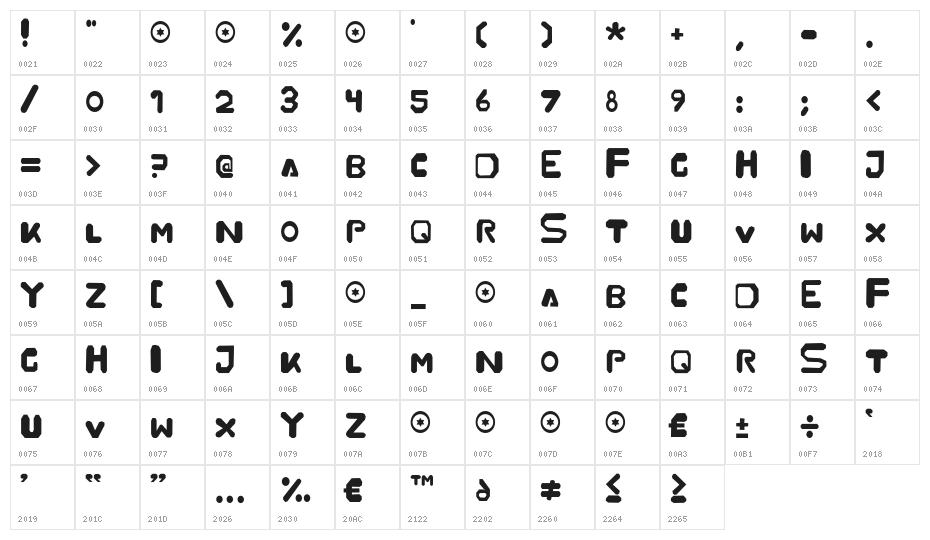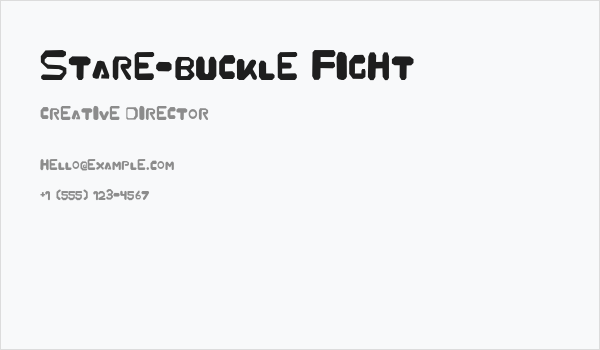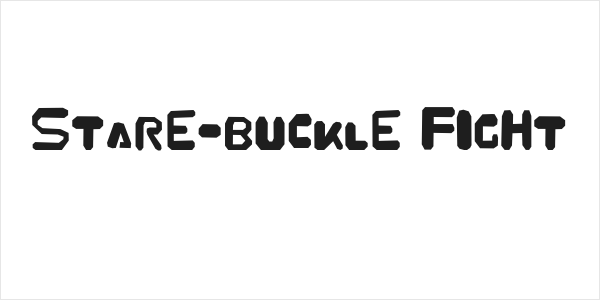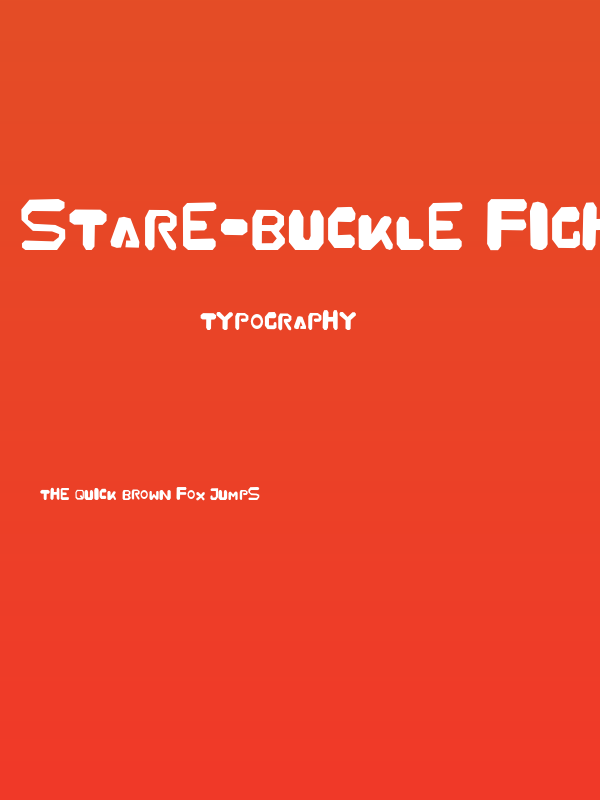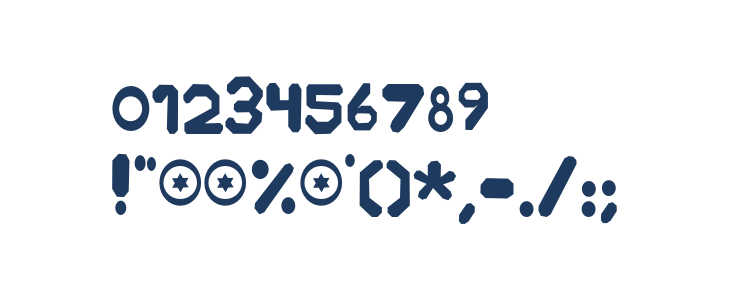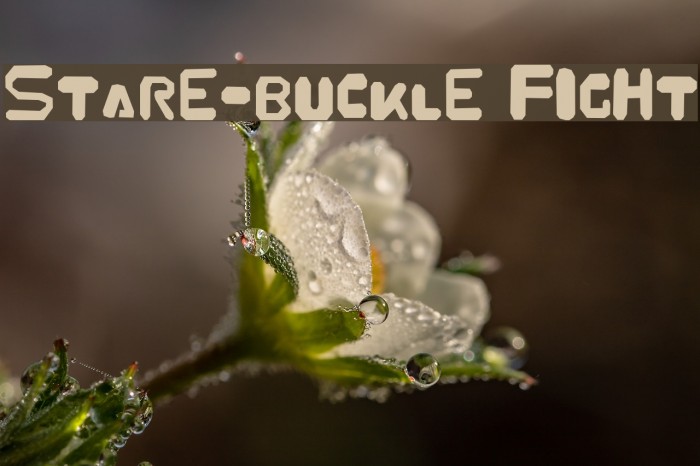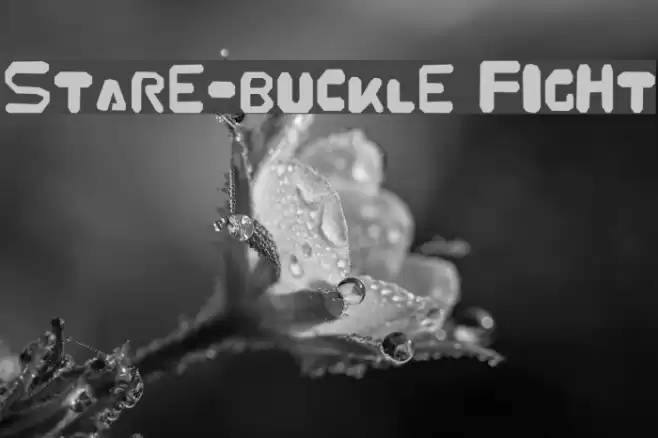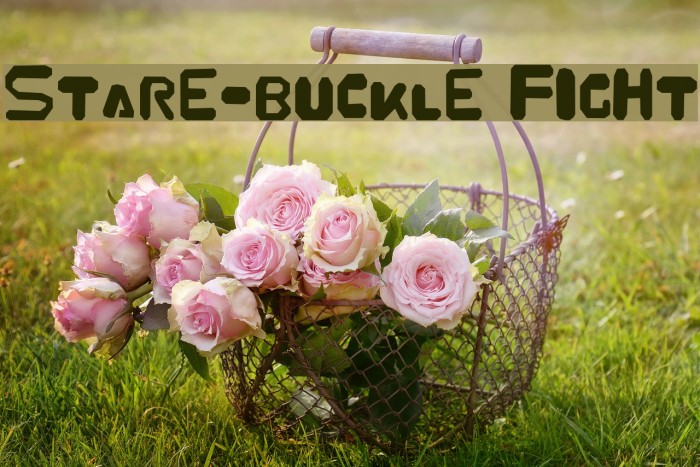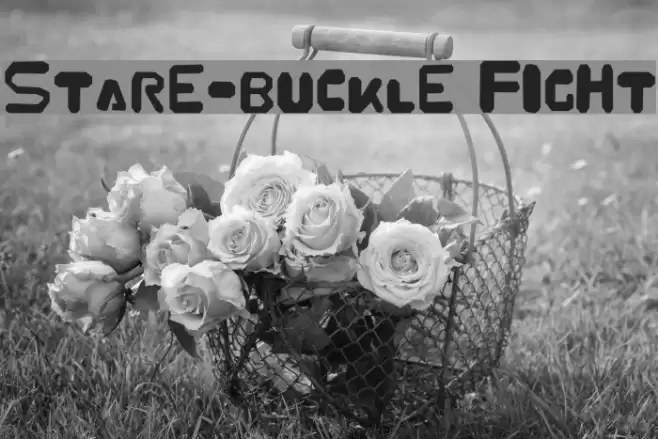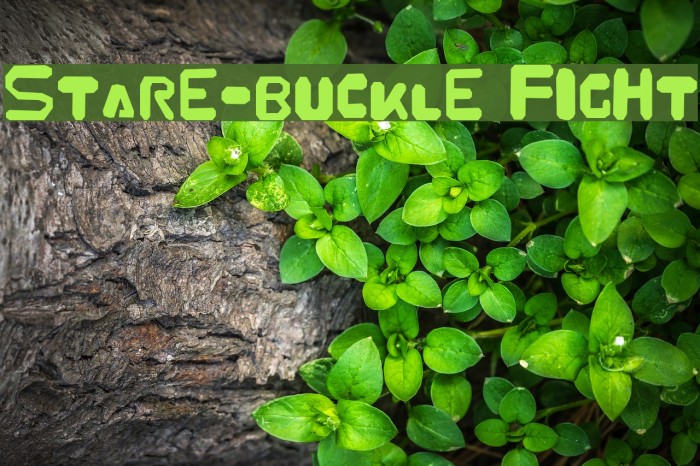
Stare-Buckle Fight Font
Stare-Buckle Fight Description
This font features a bold, geometric style with a distinct, blocky appearance. The characters are constructed with sharp angles and straight lines, creating a futuristic and industrial feel. The uppercase and lowercase letters maintain a consistent width, contributing to a uniform look. Numbers and special characters follow the same design principles, ensuring cohesion across all elements. The font's unique style makes it stand out, offering a modern and edgy aesthetic that is both eye-catching and versatile.